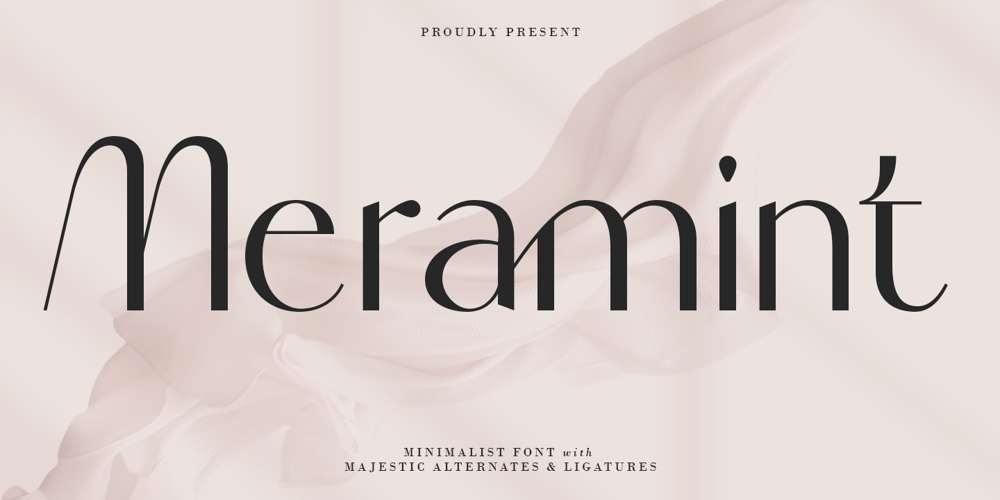
Meramint
Meramint font
Meramint Font Family was designed by Achmad Aprilia Pratama and published by Aiquitype. Meramint contains 1 styles and family package options. Introducing our Minimalist Font,Meramint Font is a meticulously crafted minimalist typeface designed to elevate your visual communication with simplicity and sophistication. This font seamlessly blends clean lines and contemporary aesthetics, making it the perfect choice for a wide range of applications, including logos, magazine covers, headings, and beauty product branding.Will you get :1. Uppercase, Lowercase, Numerals, Symbol or Punctuation2. Ready Majestic Ligature and Alternate3. Multilingual Support4. Installed on Mac and Windows5. PUA EncodeThank you, and Enjor our Font.